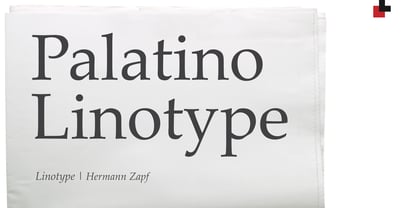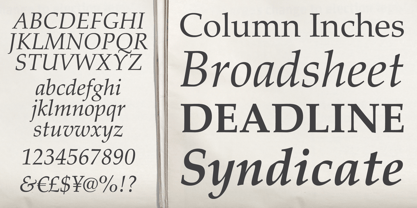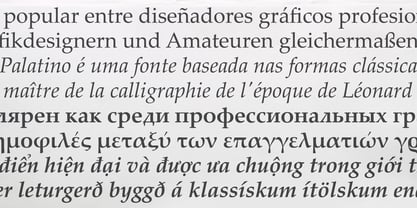
Palatino® Linotype
by Zapf Alphabets
The Palatino Linotype Font Family was designed by Hermann Zapf and published by Zapf Alphabets. Palatino Linotype contains 4 styles and family package options.
The Palatino™ typeface was first designed over 50 years ago by Hermann Zapf, and is probably the most universally admired and used of his type designs. In 1950, it was punchcut in metal by August Rosenberger at D. Stempel AG typefoundry in Frankfurt am Main, and then adapted for Linotype machine composition. Zapf optimized Palatino's design for legibility by giving it open counters and carefully weighted strokes, producing a typeface that was legible even on the inferior paper of the post-World War II period. The font was named after Giambattista Palatino, a master of calligraphy from the time of Leonardo da Vinci. Palatino is a typeface based on classical Italian Renaissance forms. It has become a modern classic in itself, and is popular among professional graphic designers and amateurs alike. Palatino works well for both text and display typography.
The new Palatino™ Linotype typefaces are OpenType format fonts, which include many newly designed characters in four large character sets; including extensive support for the Latin, Greek, and Cyrillic alphabets, as well as for Central European and many other languages.
The fonts also include many ligature glyphs, including some historical long s-ligatures, as well as sets of Small Caps, Old style Figures, and vertical & diagonal fractions.
Each font contains 1325 different glyphs.
Designers: Hermann Zapf
Publisher: Zapf Alphabets
Foundry: Zapf Alphabets
Original Foundry: Stempel